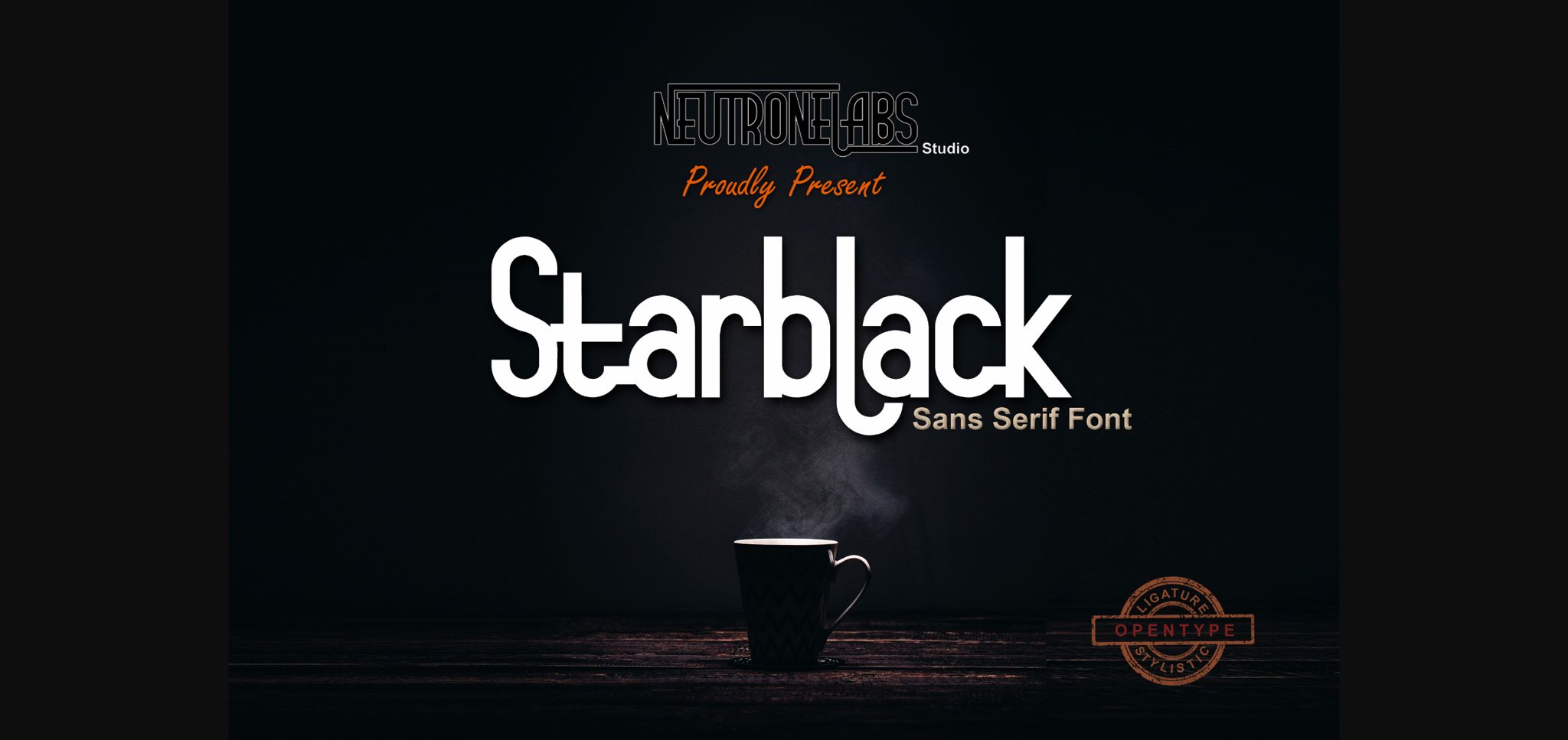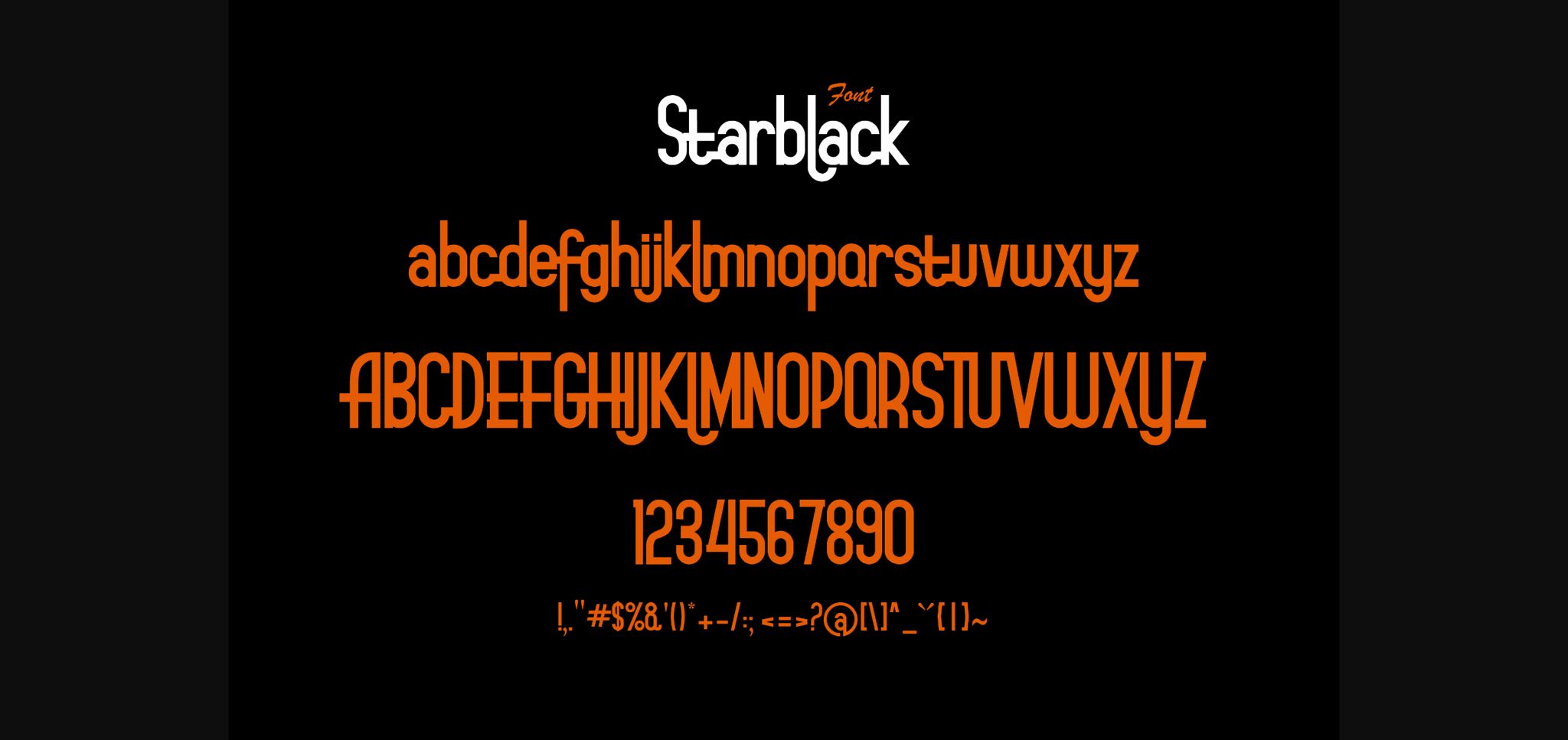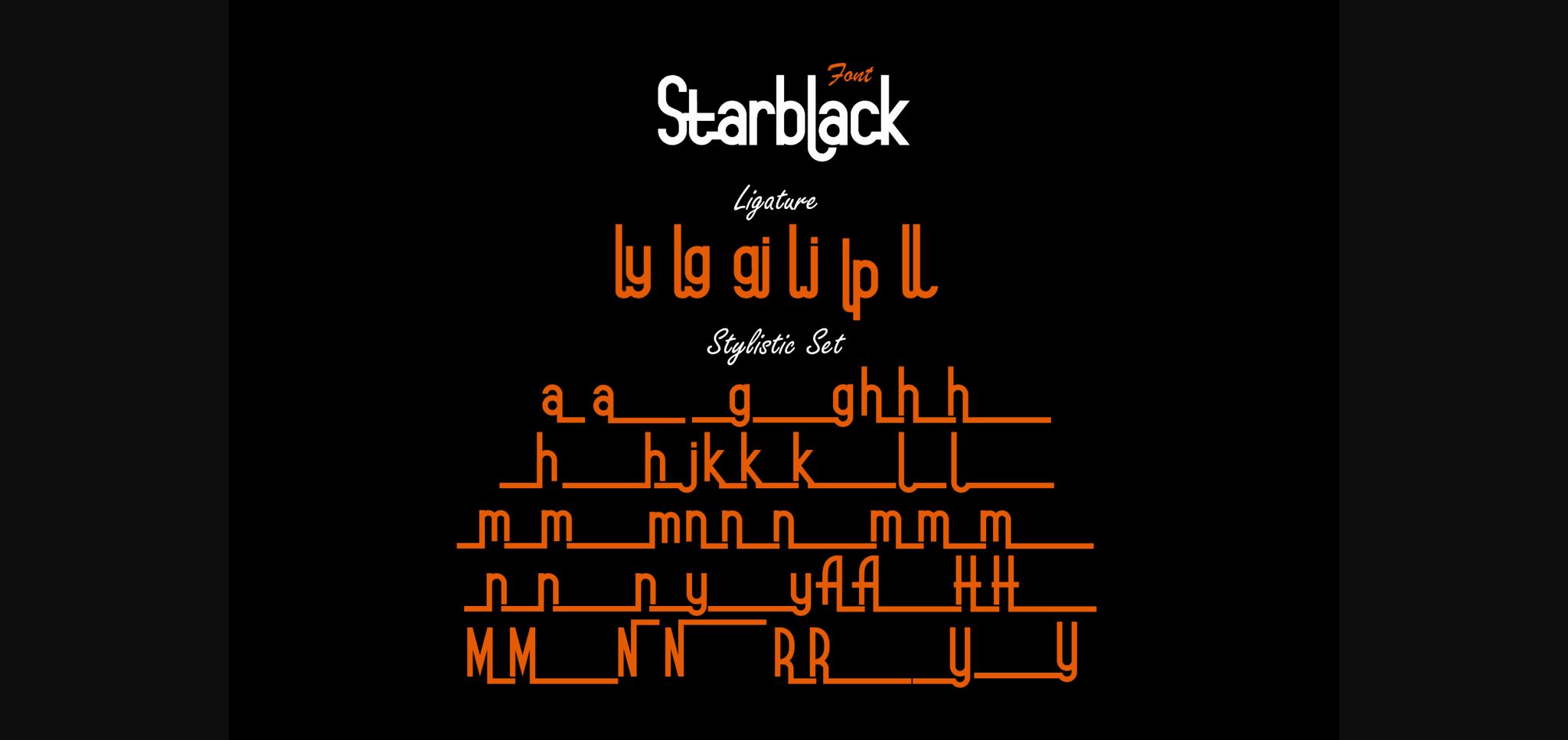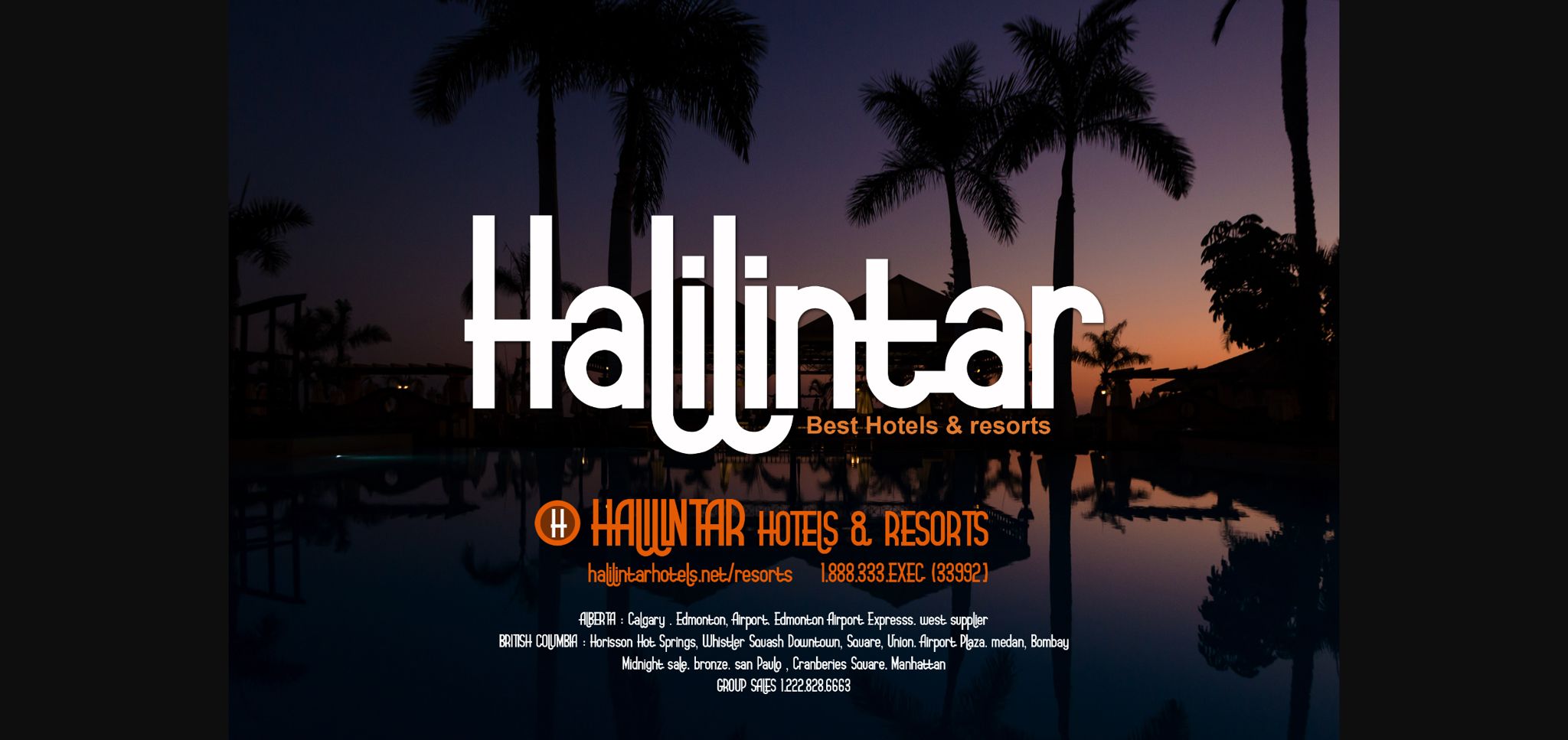
About Starblack Font
“Starblack” emerges as a versatile sans serif font, offering simplicity and elegance for a wide range of design projects. Tailored for branding initiatives, logo creation, wedding designs, social media content, advertising campaigns, product packaging, and beyond, this font is poised to become a go-to choice for designers seeking clarity and sophistication in their work.
With its clean lines and timeless appeal, “Starblack” brings a sense of professionalism and refinement to every project it touches. Whether used in sleek logos or engaging social media posts, this font exudes a sense of confidence and authority that resonates with audiences.
Branding projects benefit from the versatility of “Starblack,” as it lends a sense of consistency and coherence to visual identities. Its understated elegance allows brands to communicate their message effectively while maintaining a modern and sophisticated aesthetic.
For wedding designs, “Starblack” adds a touch of sophistication and romance, setting the tone for memorable celebrations. Whether used in invitations, place cards, or event signage, this font enhances the overall ambiance and elegance of the occasion.
In social media posts and advertisements, “Starblack” commands attention with its clean and legible appearance. Its simplicity allows for clear communication of messages, while its modern vibe ensures that content remains visually appealing and on-trend.
Product packaging takes on a new level of refinement with the inclusion of “Starblack.” Its versatility allows for seamless integration into packaging designs across various industries, adding a touch of sophistication and professionalism to products on the shelf.
In summary, “Starblack” stands as a reliable and versatile sans serif font, perfectly suited for a wide range of design projects. Whether used for branding, logos, wedding designs, social media content, advertisements, or product packaging, this font delivers clarity, sophistication, and timeless elegance that elevate every creative endeavor.